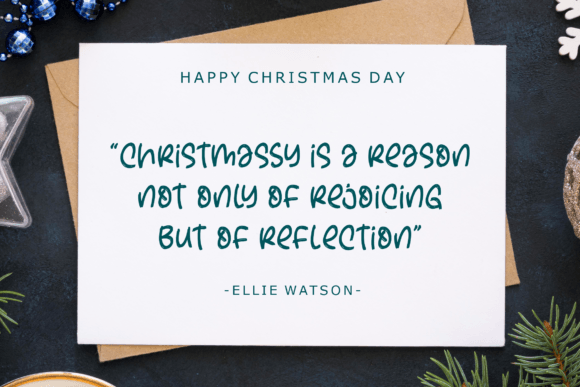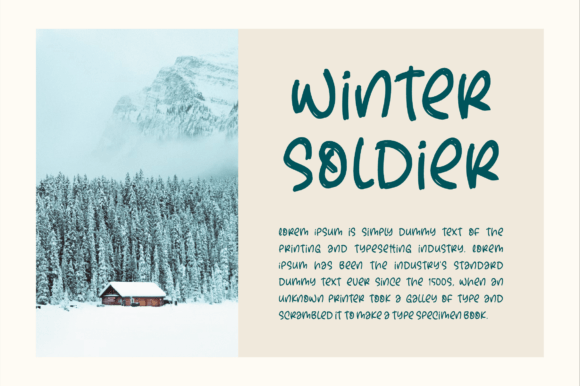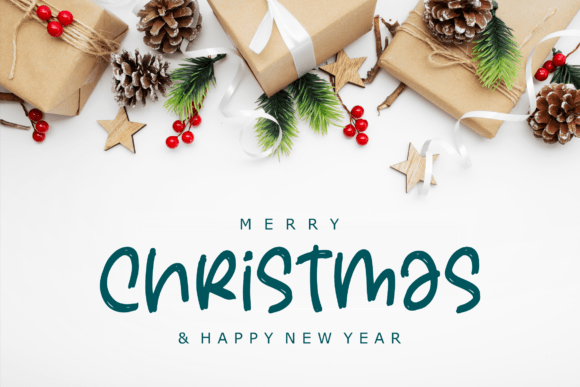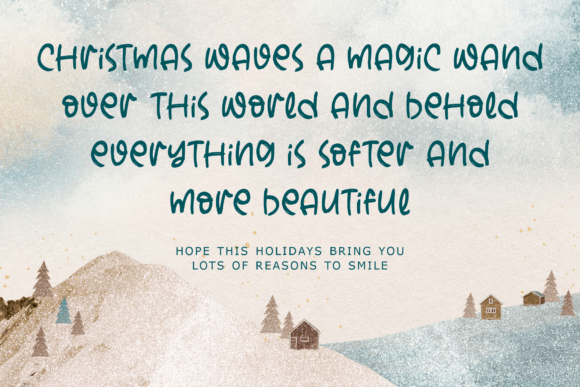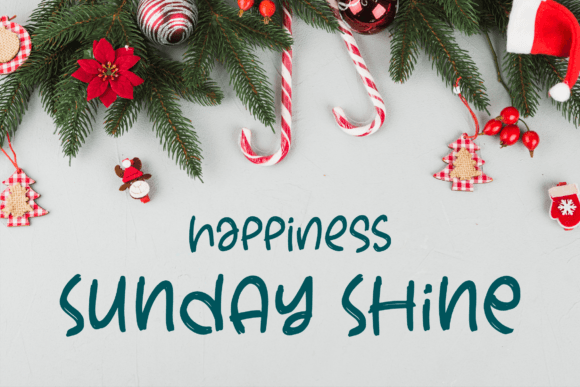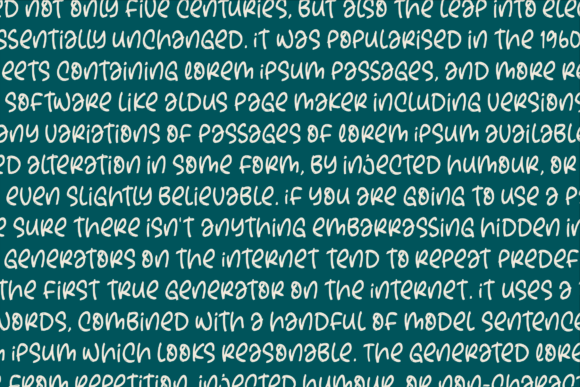
Introduction to Christmassy Font
Christmassy is a fun and whimsical handwritten font.
Its quirky and casual vibe is perfect for all your crafty ideas that require a touch of youth and joy .